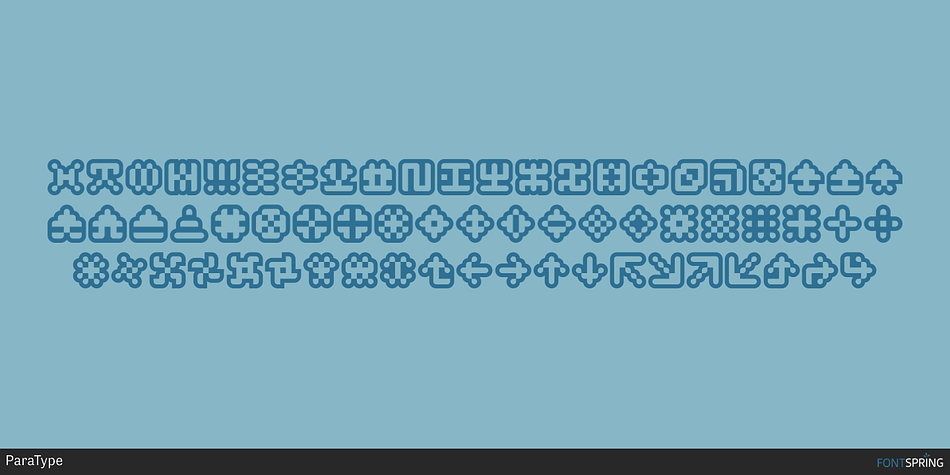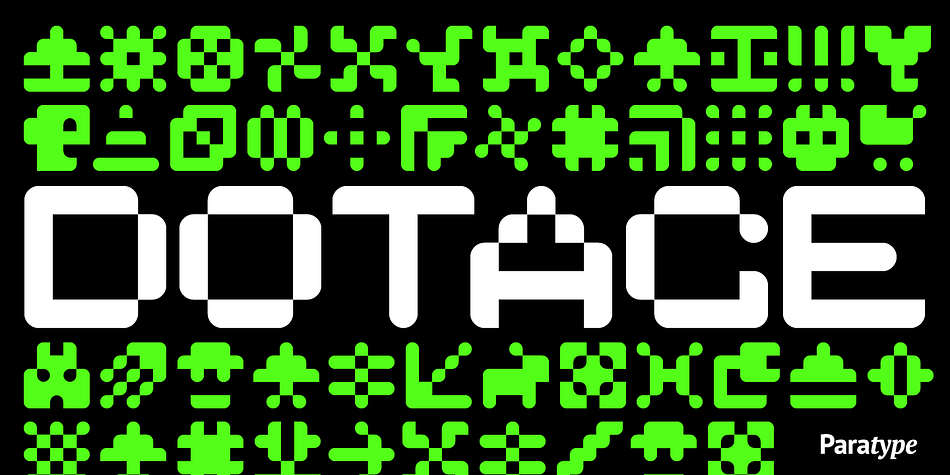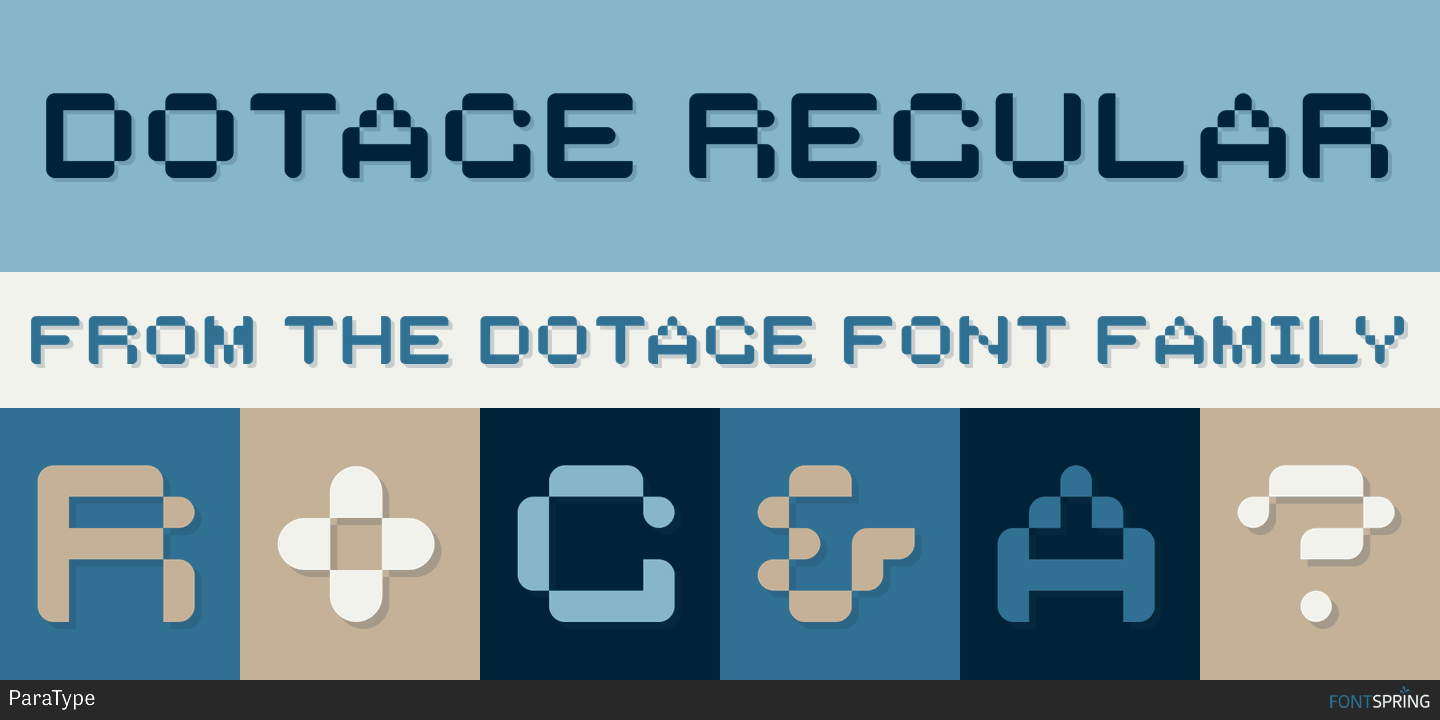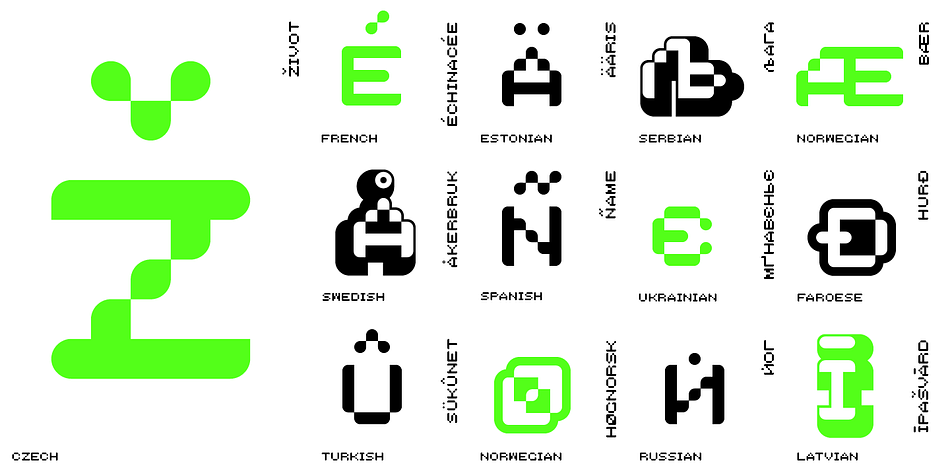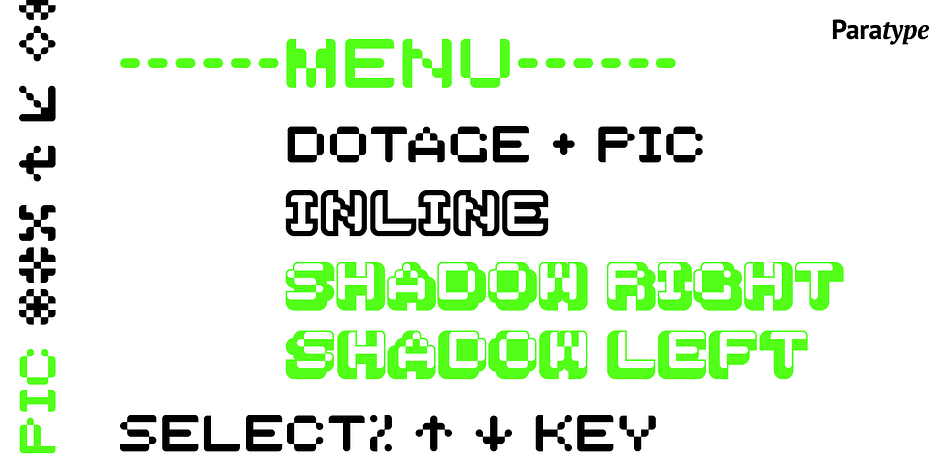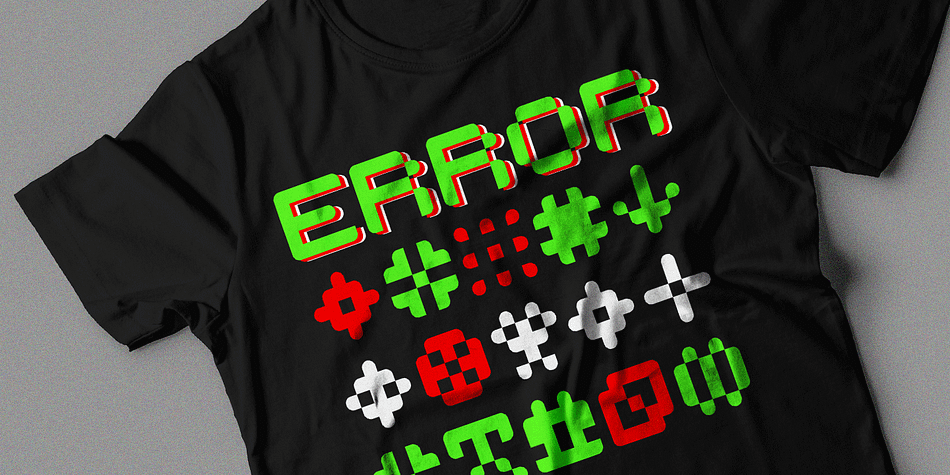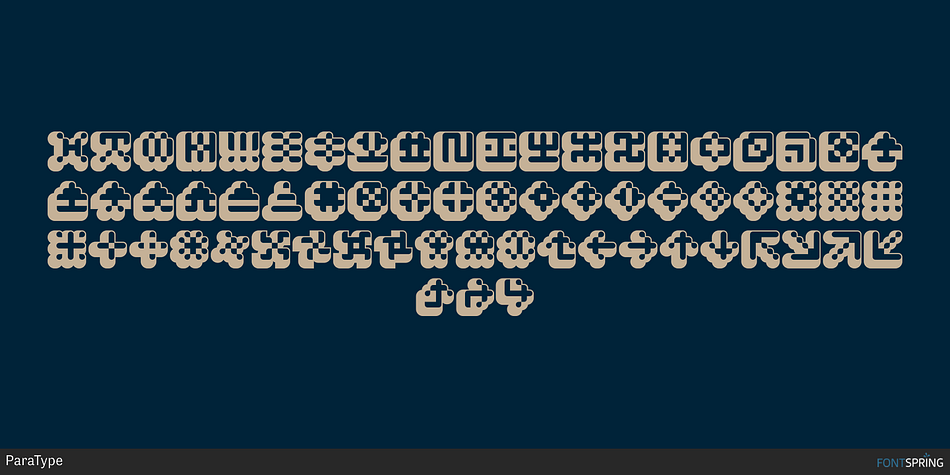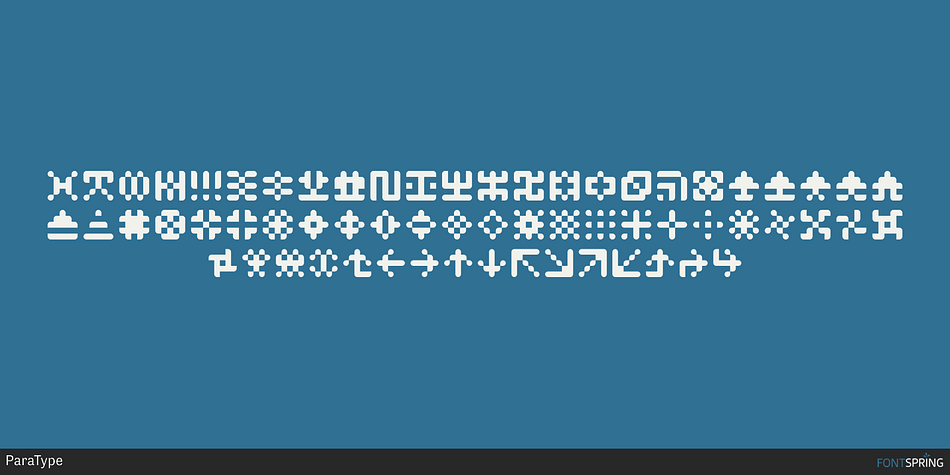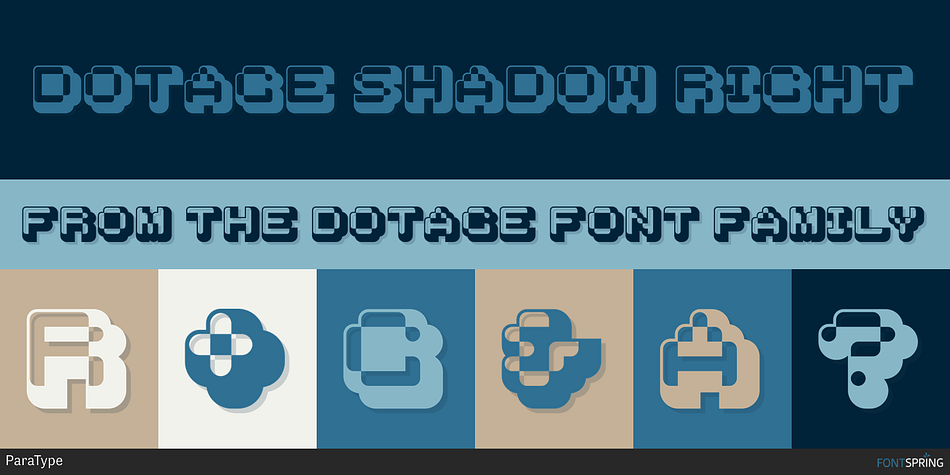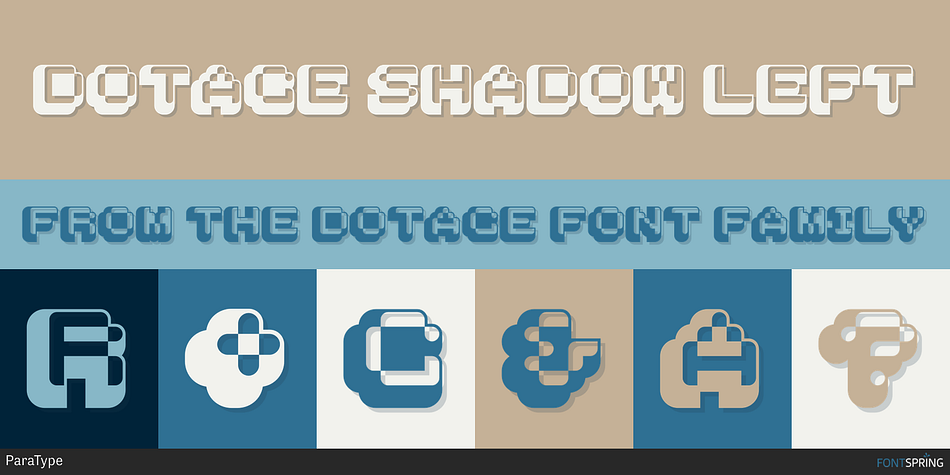
Designed by Vladimir Pavlikov, Dotage is a dingbat and pixel font family. This typeface has eight styles and was published by ParaType.
Decorative caps only type family was designed in 2004 by Vladimir Pavlikov and licensed by ParaType. Its letterforms are imitating low resolution display letters used at railway stations, airports, and other public places. Regular, Inline, Shadow Left, and Shadow Right styles are available. An additional set of symbols and pictograms is included in each style to increase its decorative abilities. The face is good in magazine advertising, posters, and industrial graphic design at the fields of science and technics.